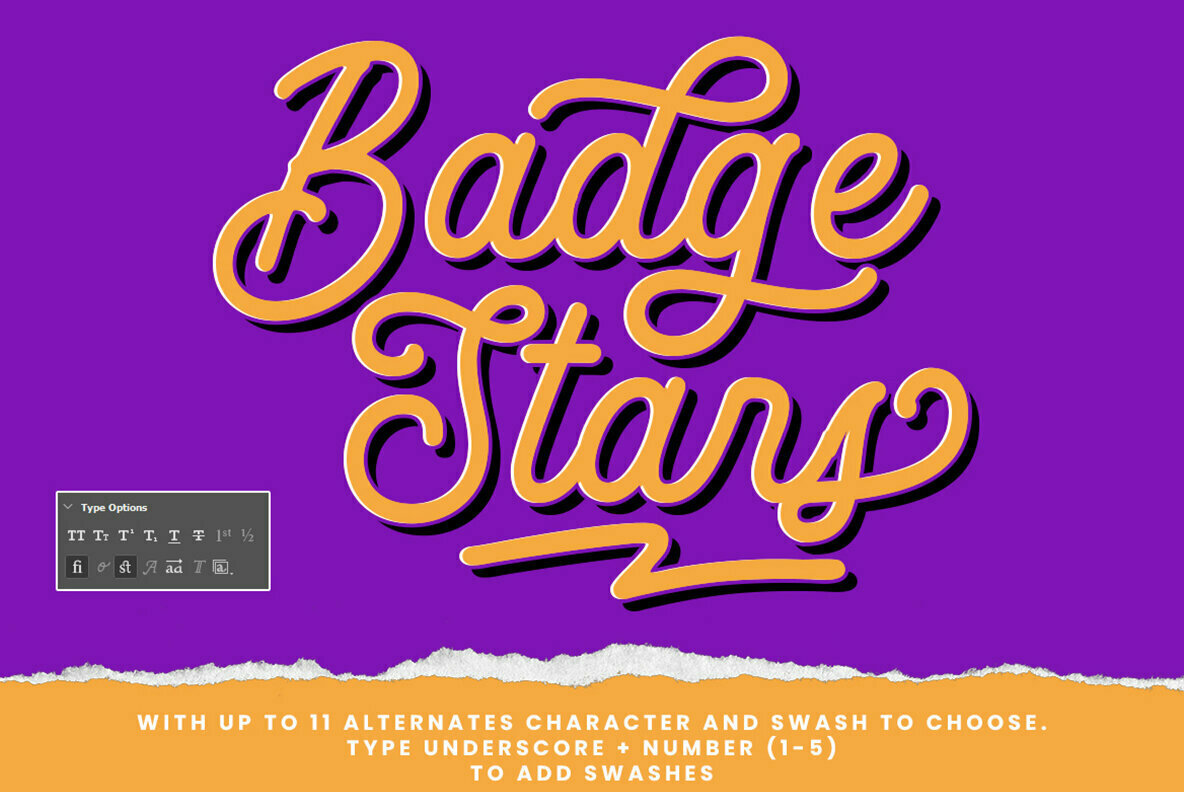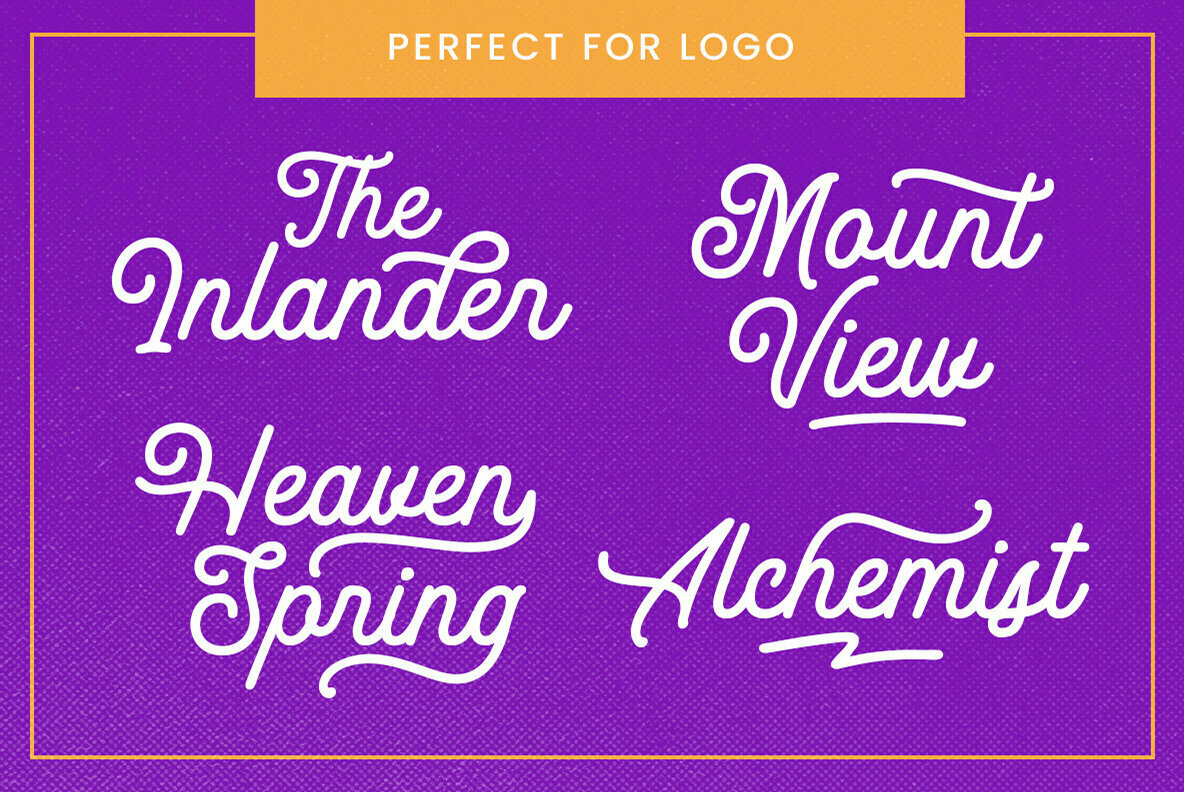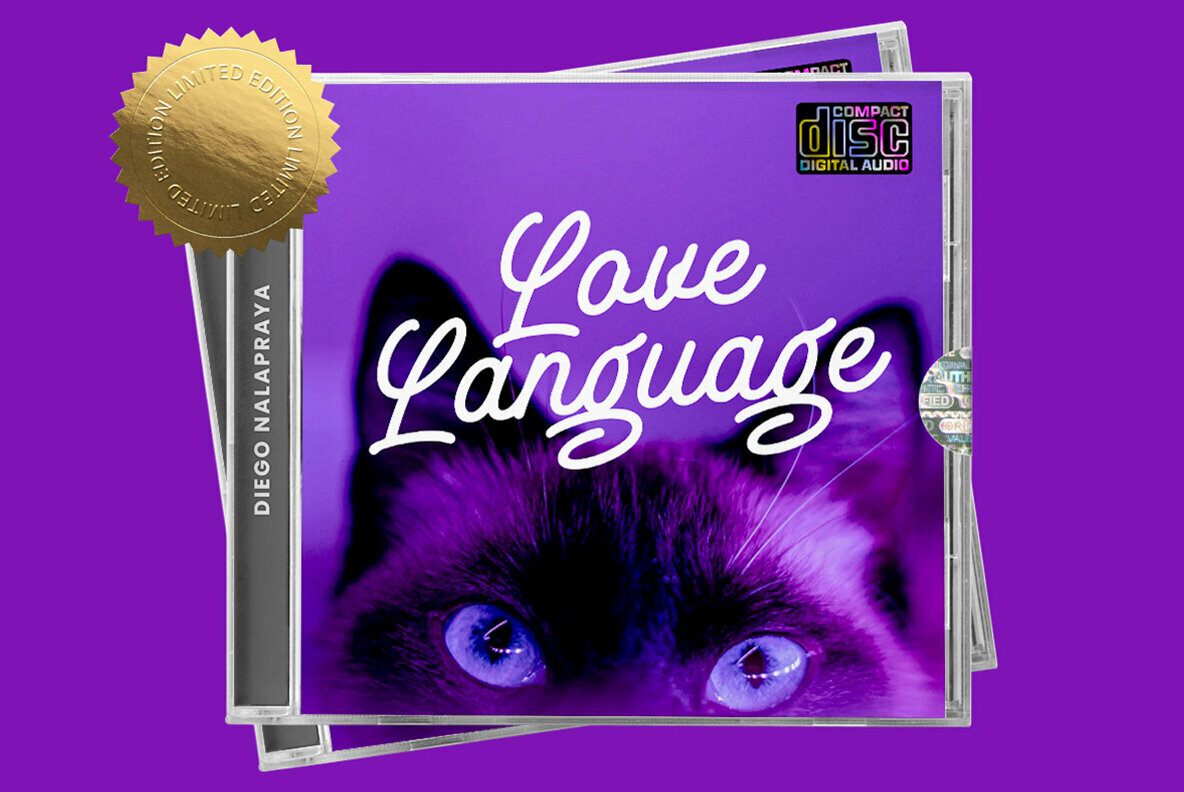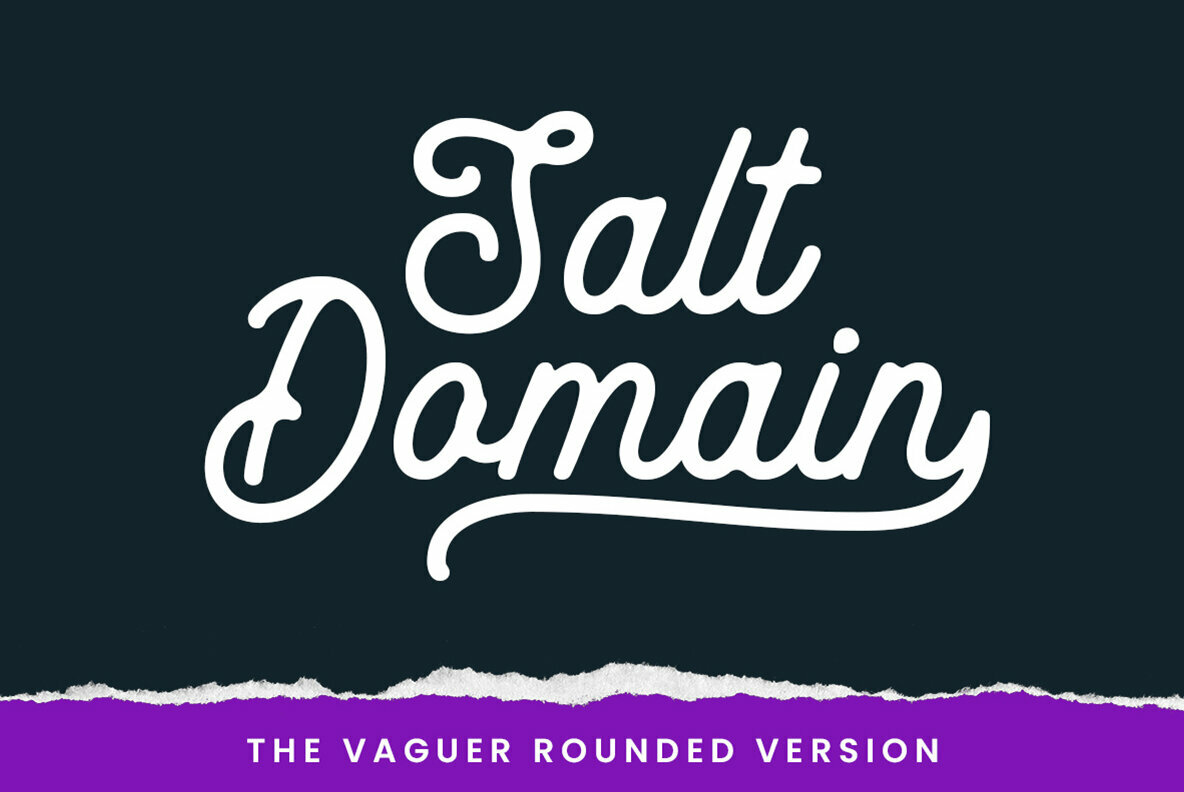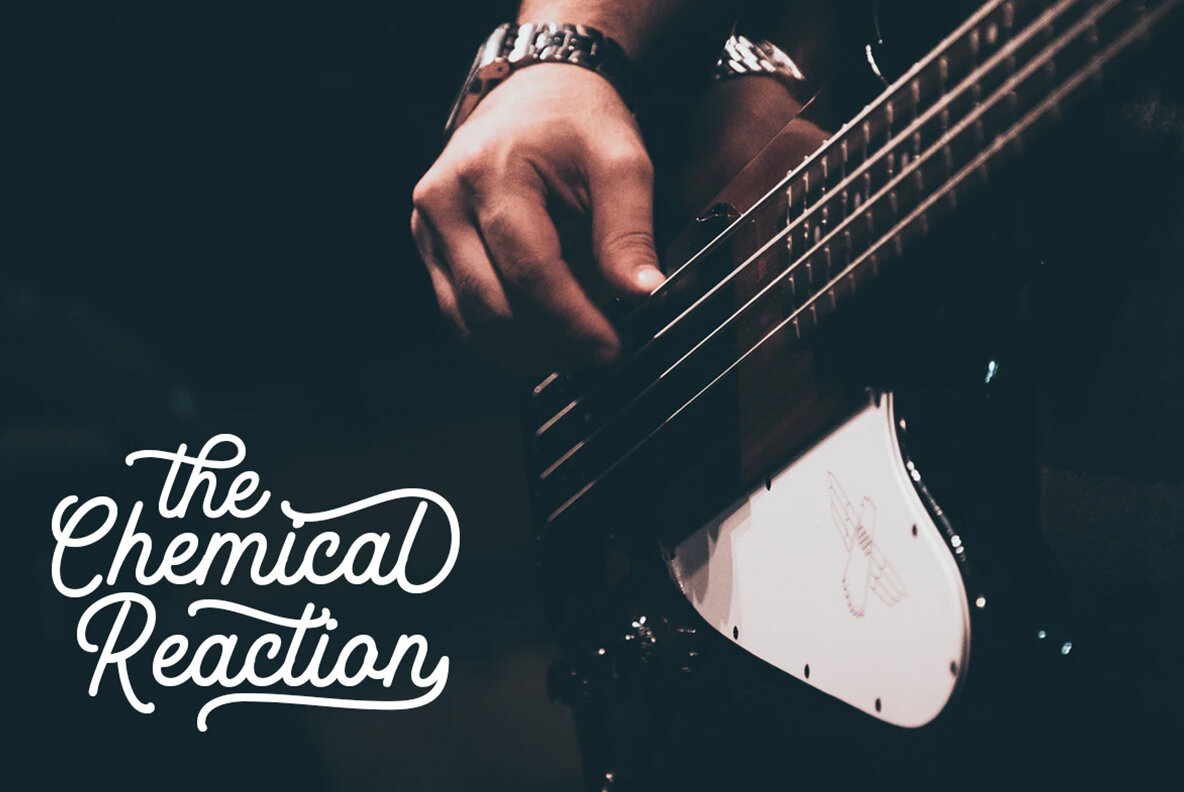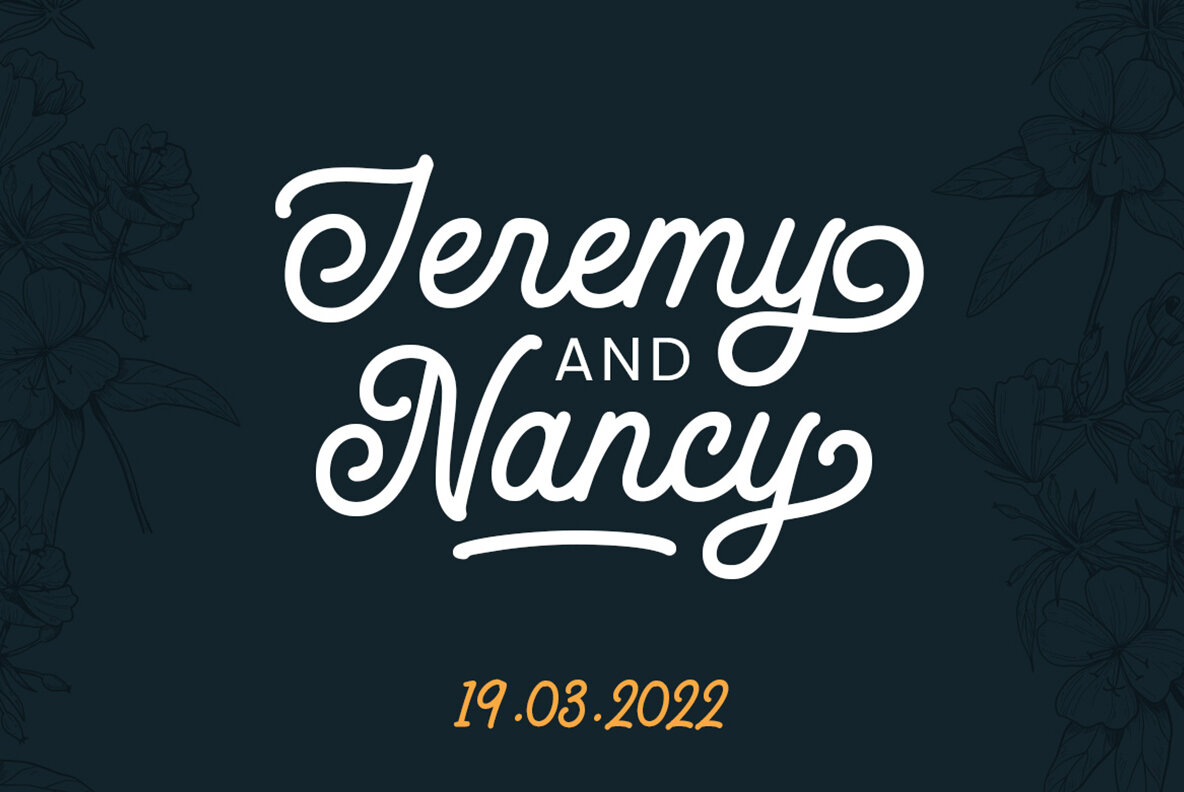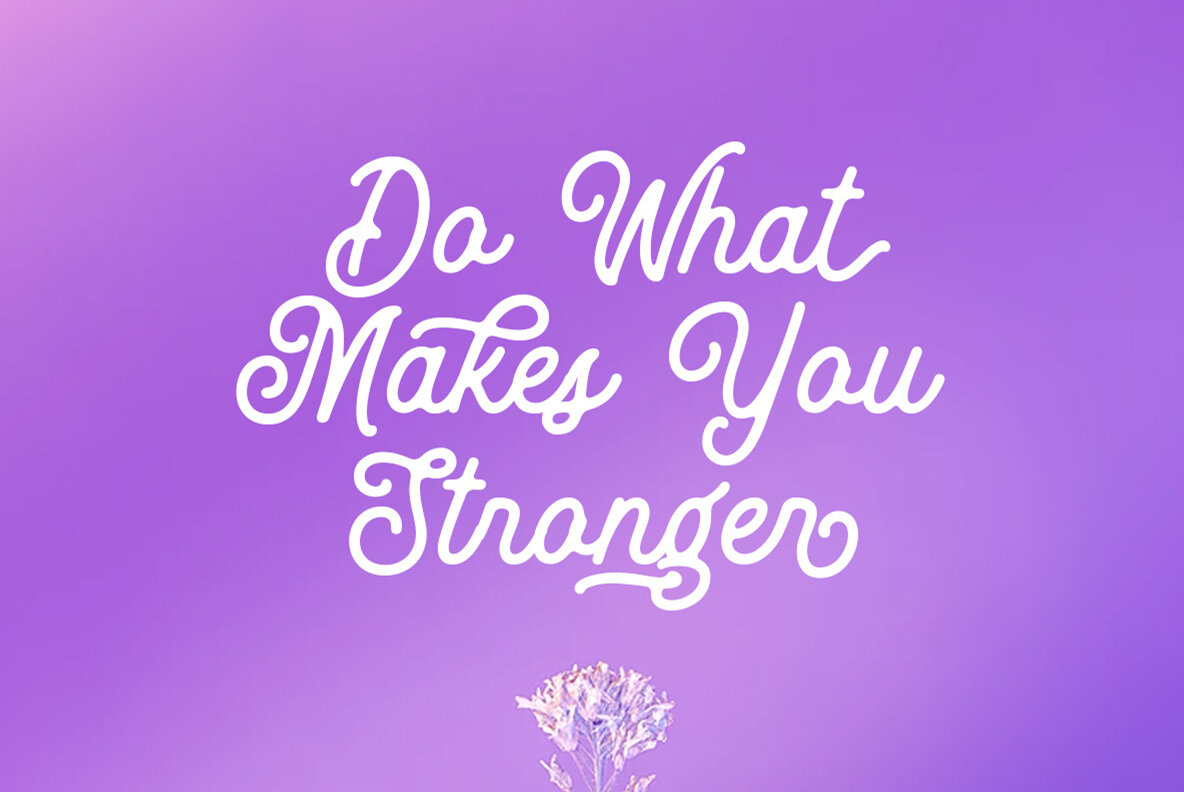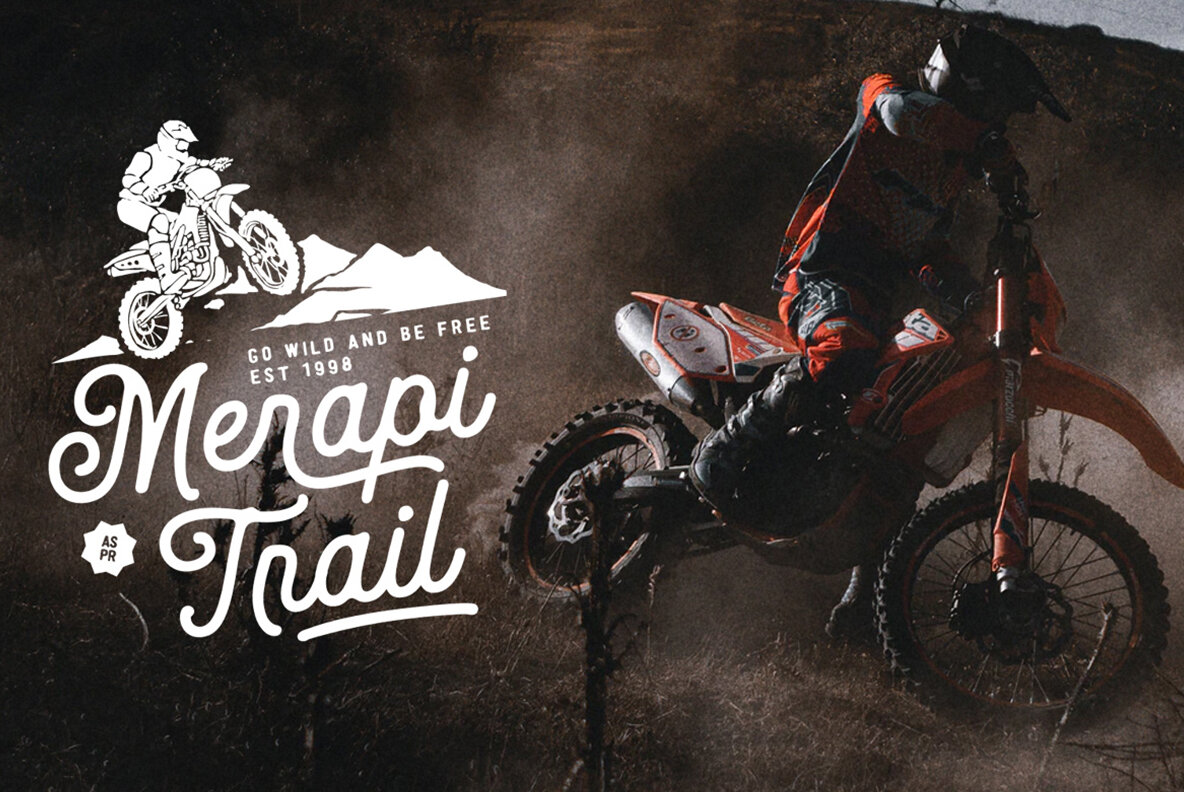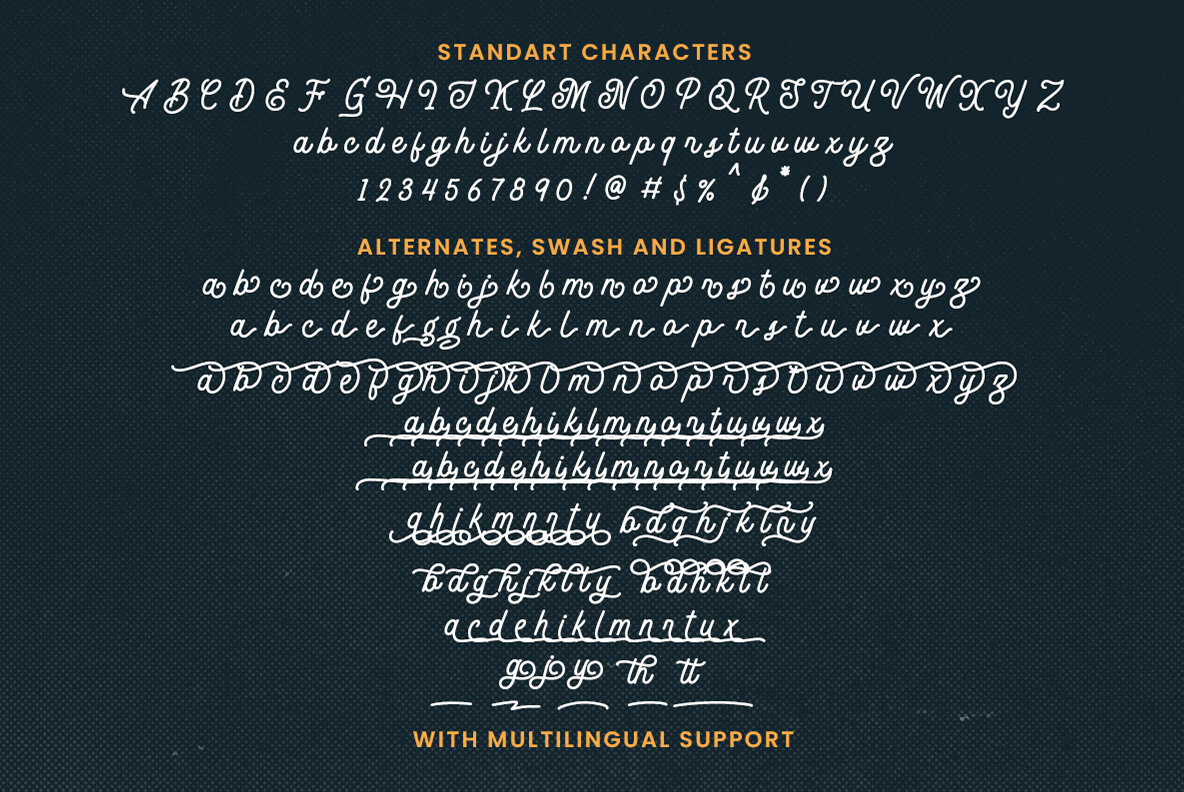
The Vaguer Font
The Vaguer Regular
The Vaguer Rounded
The Vaguer stands out with its unique blend of modern adaptability and organic design. Crafted meticulously to cater to contemporary design demands, it offers a rounded version that evokes warmth and authenticity. This versatile typeface is well-suited to a wide range of projects, from crafting compelling logos to evocative quotes and brand identities.The Vaguer: Organic Elegance for Modern Design